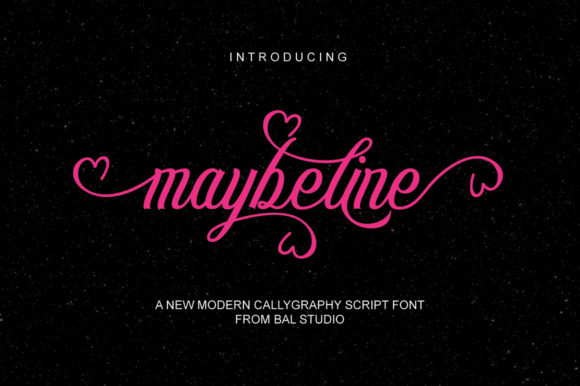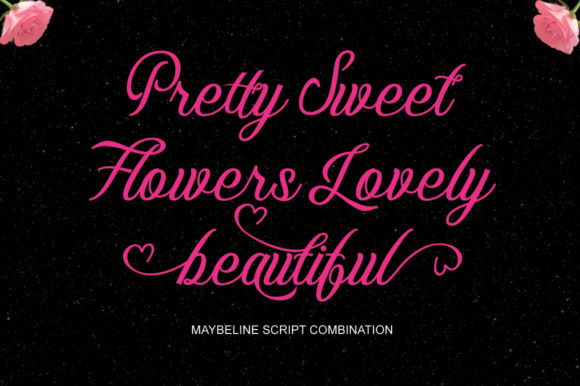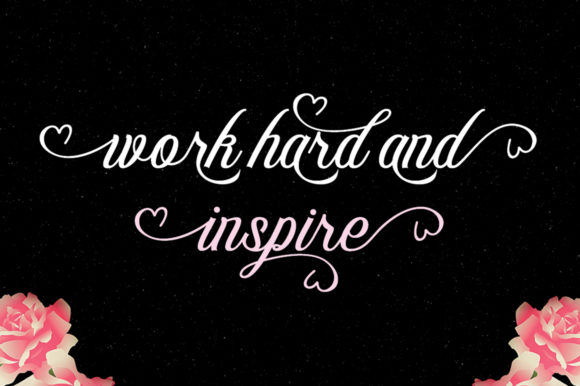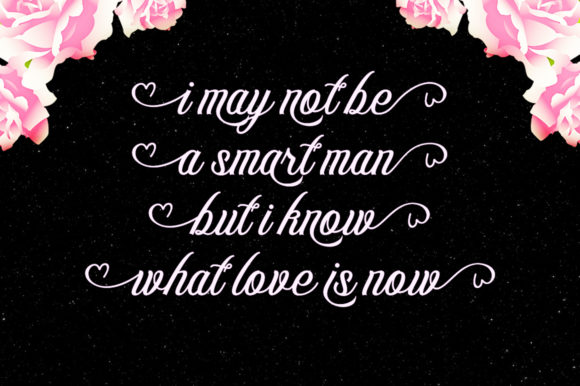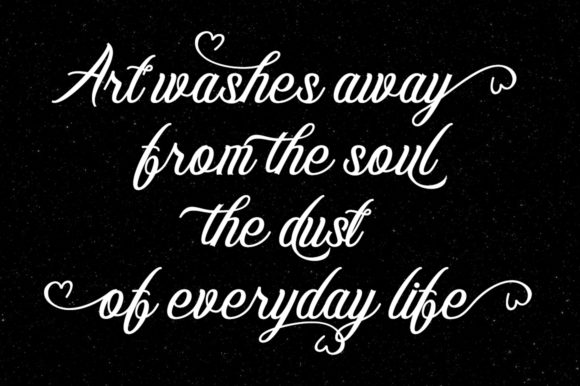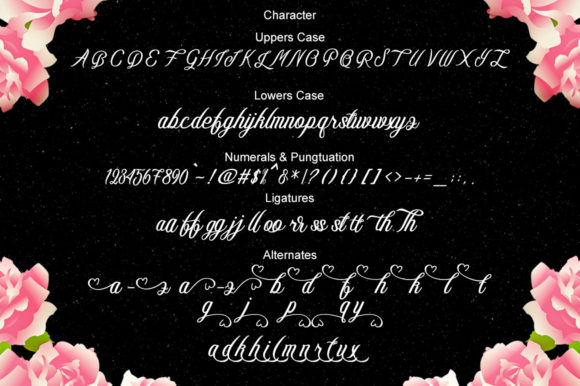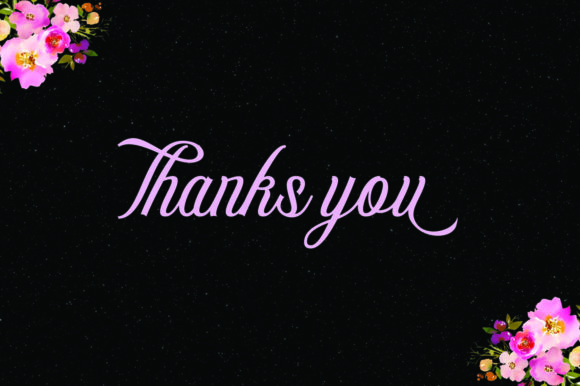
HomeScript FontsMaybeline Font Script Fonts Maybeline Font FacebookXPinterestWhatsApp Maybeline Font Poster 2 Maybeline Font Poster 3 Maybeline Font Poster 4 Maybeline Font Poster 5 Maybeline Font Poster 6 Maybeline Font Poster 7 About Maybeline Font Maybeline is a stunning script font featuring bold swashes. This classy script will make any design stand out. DOWNLOAD ON CREATIVE FABRICAThis font is sold and delivered by Creative Fabrica. Font Canyon may earn a commission if you buy through this link. People also explored Mavitya Pumkin Font Angelonia Font Love Bird Taylor Alison Font Monalissa Font Lady Boss Font Riceball Font Over Creative Line Font 450 0 TagsMaybeline Font Previous articleJeefield FontNext articleCllarin Font LEAVE A REPLY Cancel reply Comment: Please enter your comment! Name:* Please enter your name here Email:* You have entered an incorrect email address! Please enter your email address here Website: Save my name, email, and website in this browser for the next time I comment. Personal Use Free Snaily Personal Use Free Read more about this font Vuldo Personal Use Free Read more about this font Scarlove Personal Use Free Read more about this font Anggiana Personal Use Free Read more about this font BLOG Free vs Paid Fonts: Why Investing in Premium Fonts Is Worth It Free vs Paid Fonts: Why Premium Fonts Are Worth It in 2025 The debate of free vs paid fonts continues in the design world. While... Top 7 Google Fonts Alternatives for Faster and Privacy-Friendly Web Design (2025) The 10 Best Handwriting Fonts to Add Personality to Your Designs Top 10 Handwritten Fonts That Elevate Your Designs